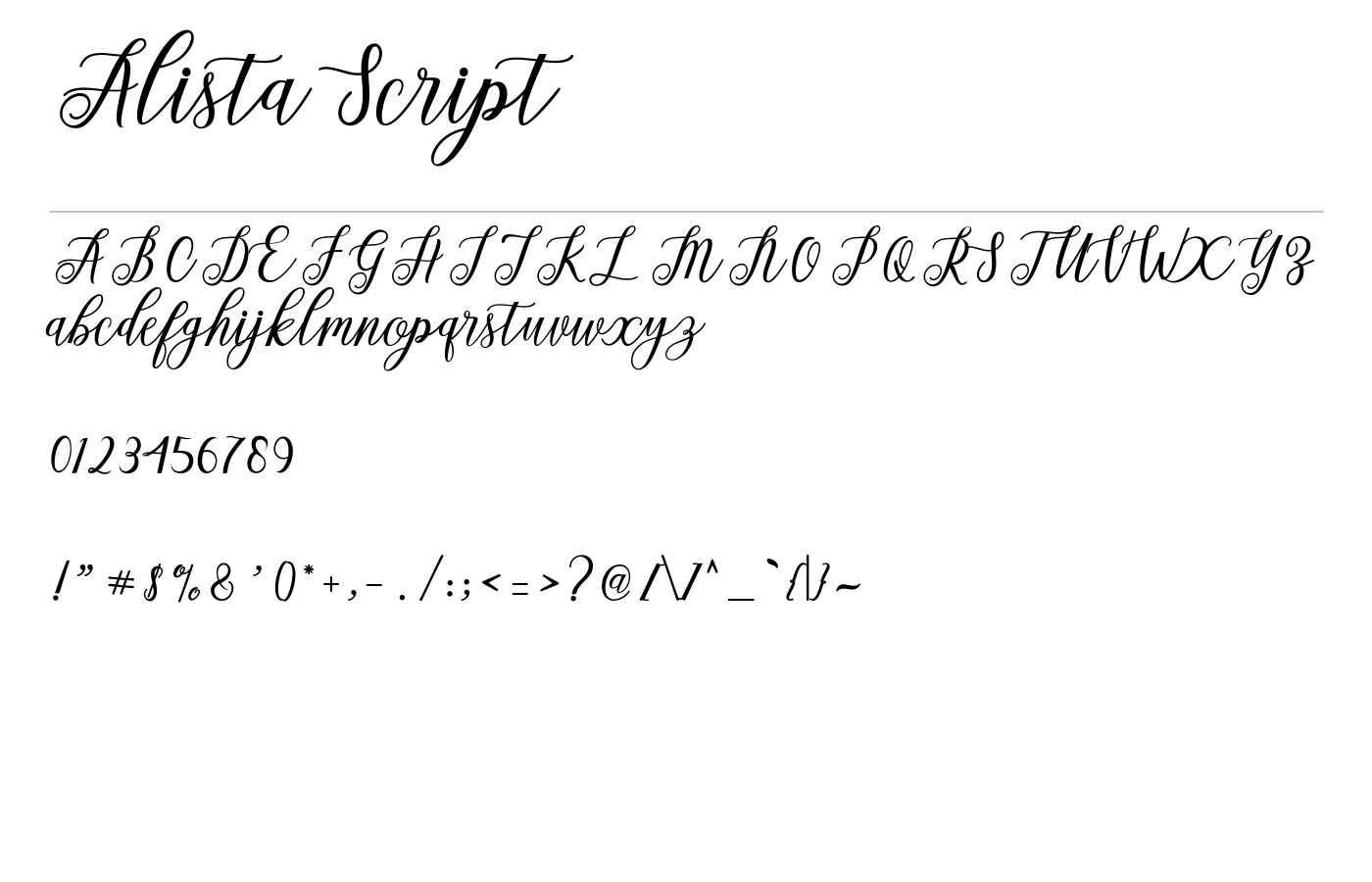
Alista Script is an elegant and flowing script font characterized by its delicate, handwritten style with graceful, looping strokes and a refined thin weight. Its tall x-height and consistent stroke contrast give it a sophisticated, romantic feel, making it perfect for luxury branding, wedding invitations, and editorial headlines where a touch of class and individuality is desired. This font’s ornamental letterforms and smooth connections bring a personal and artistic vibe, enhancing creative projects that seek warmth and elegance.
Alista Script Font